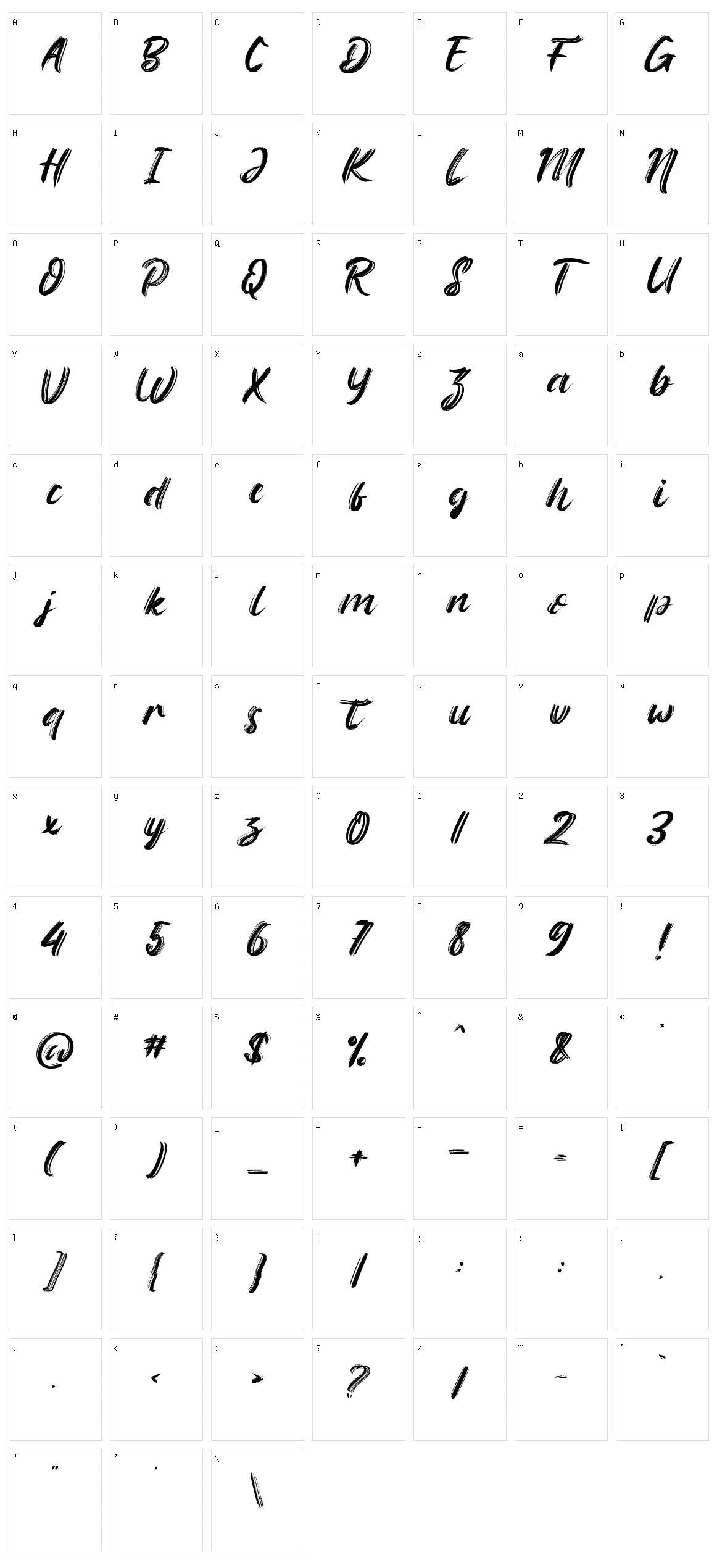
The free font The Flybirds is carefully designed by Green Adventure Studio, showcasing a thoughtful balance of creativity and usability and falls under the Script font style. When you download the ZIP file, it contains only 599.54 KB of font files, making it lightweight and quick to download. Please review the license details below to understand permitted usage and distribution rights. If license information is not available, we recommend using this font for personal projects only or contacting the author directly for commercial usage permissions.